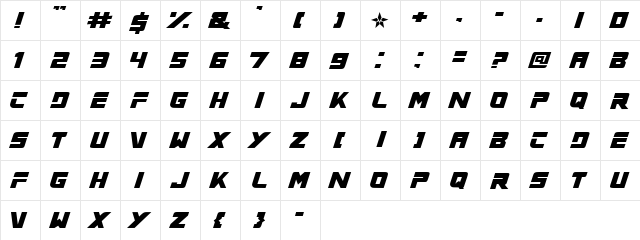
STAR7 Regular
| Designer | abdul ghofur |
Design Context for STAR7 Typeface
STAR7 offers clean, dependable letterforms without strong stylistic allegiance, making it a practical choice for designers who need flexibility.